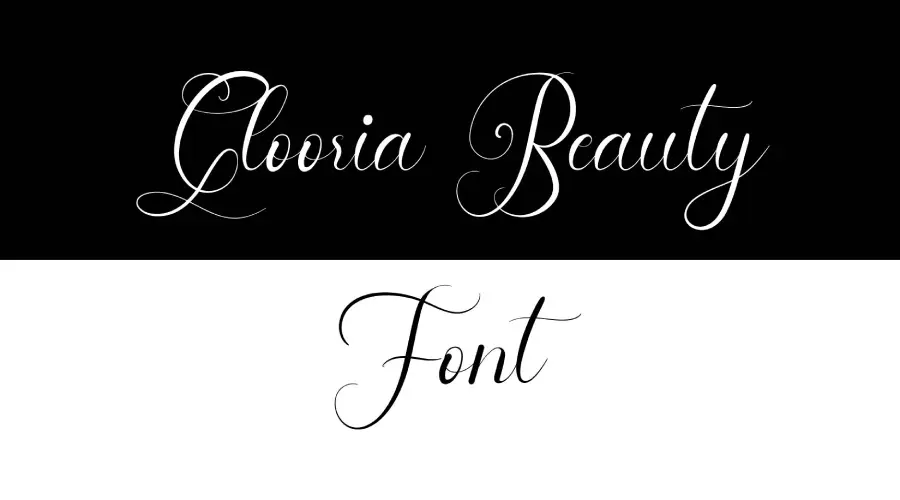
Gloria Beauty font is a one-of-a-kind Calligraphy Script handwritten font with a basic, natural style. The style is elegant, smart, trendy, clean, and classic. It contains a beautiful character set that is nicely spaced and kerneled. The font features lovely creative curves that add to its appeal. This typeface also comes in an italic version, which is amazing. The font is designed and published by edric studio.
Gloria Beauty Font is ideal for a variety of applications such as branding, logo design, stationery, business cards, signage, flyers, and brochures. This typeface will work well in almost any industry: weddings, events, real estate, architects, legal firms, florists, gardening, makeup artists, travel, hotels, musicians, and so on. The typeface is ideal for creating wallpaper and logos. The typeface is also suitable for headers and subheadings in any form of work.
Gloria Beauty Font is a beautiful and versatile calligraphy script font that is perfect for a variety of design projects. It has a unique natural look and well-balanced characters. If you are looking for a calligraphy script font with a modern and elegant feel, be sure to check out Gloria Beauty Font.